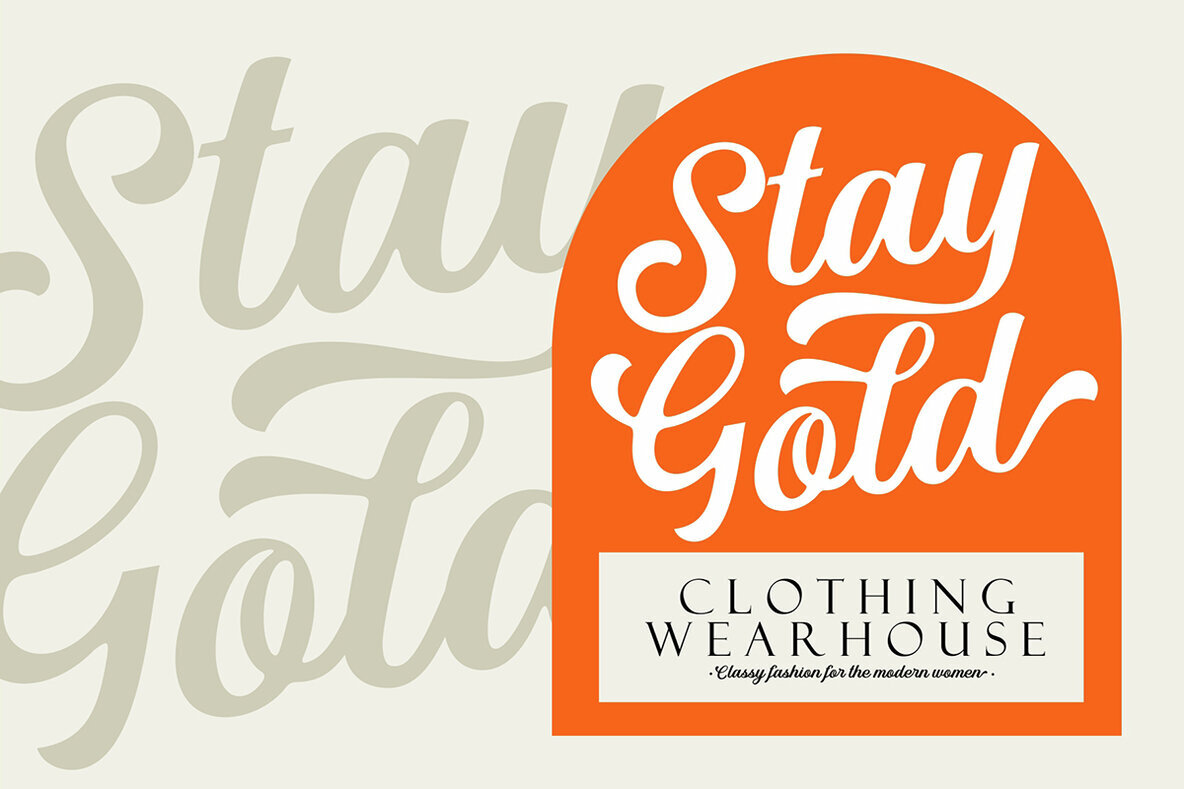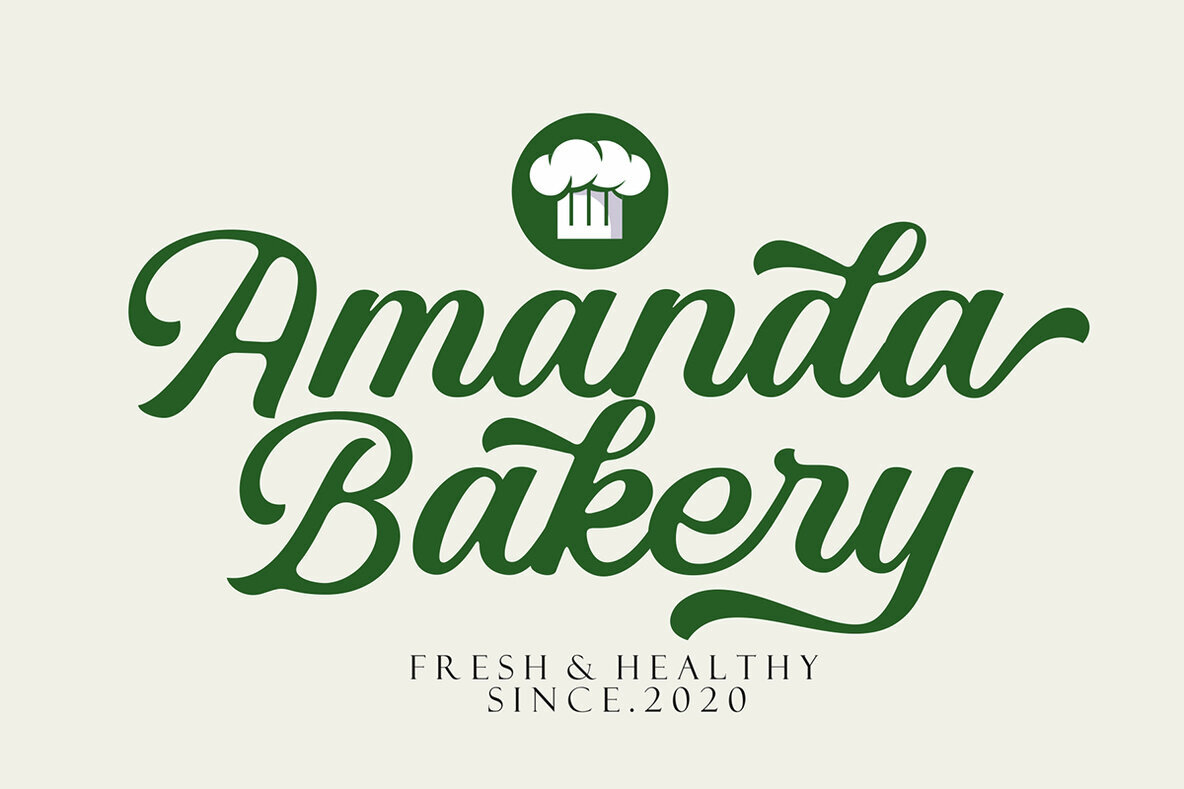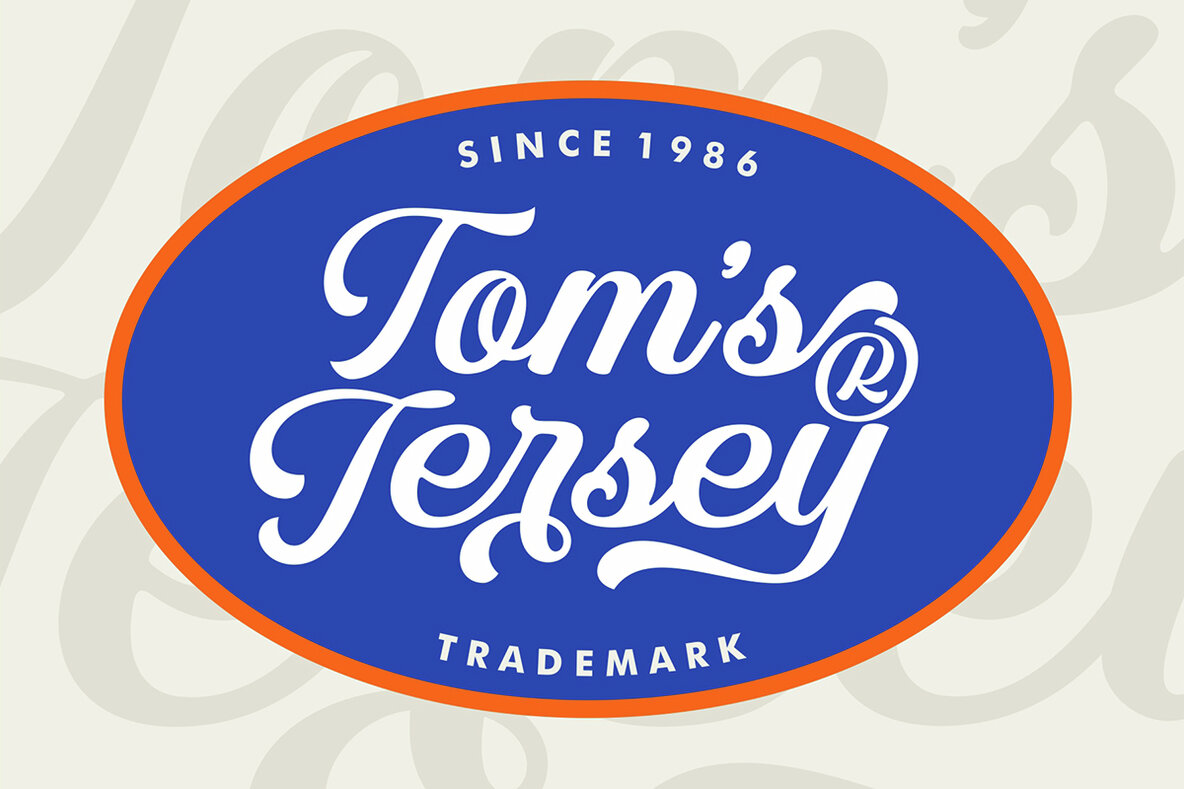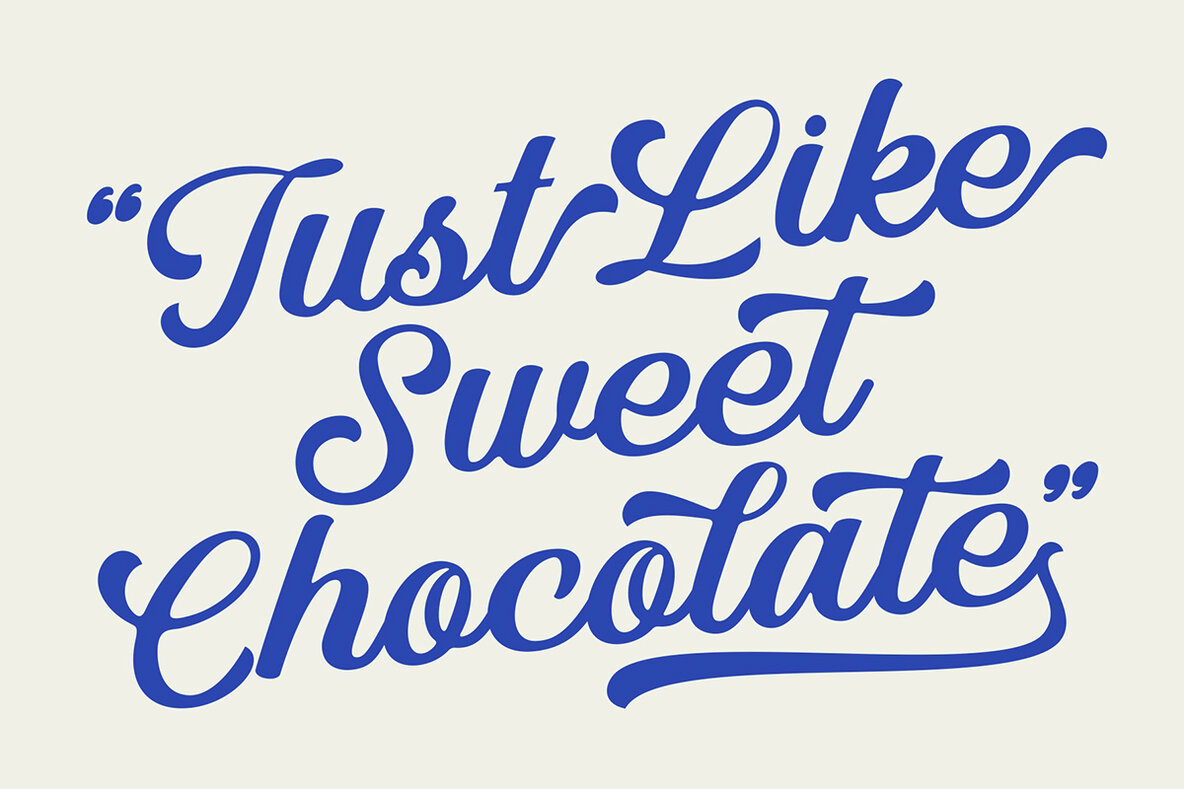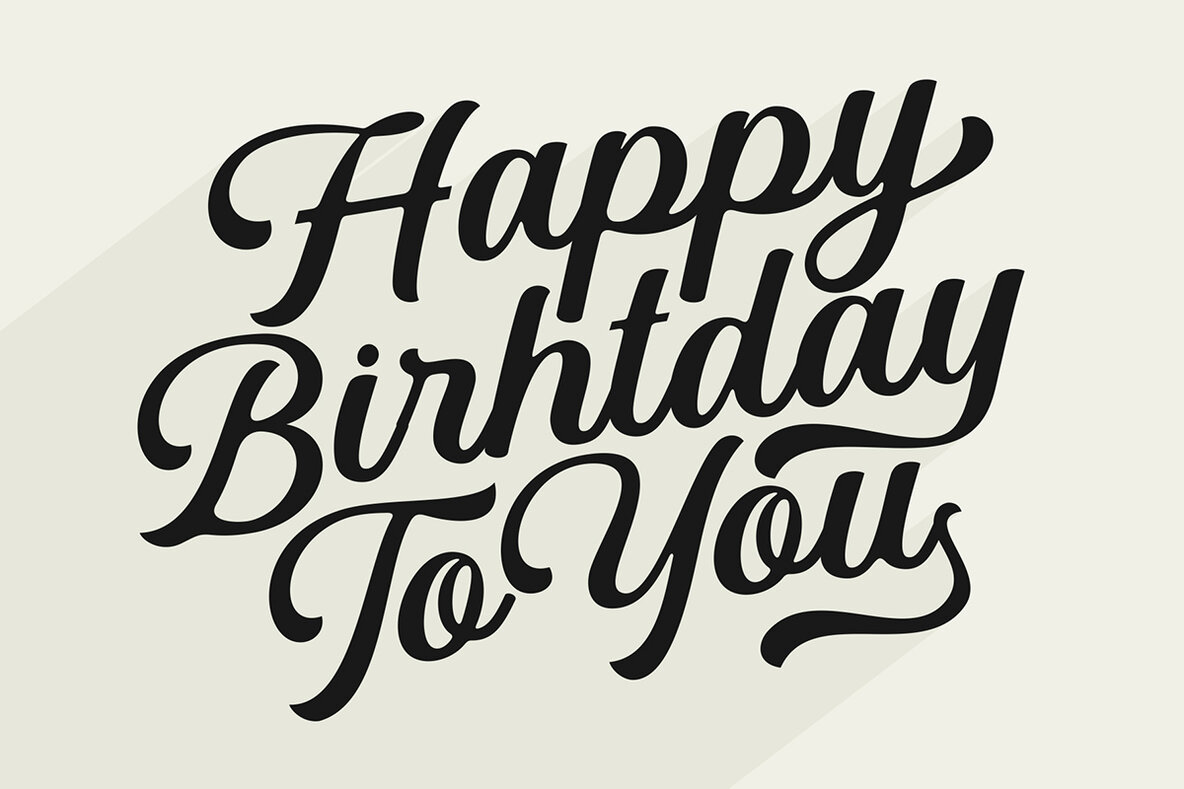
Artisan Script is a casual rounded script font, ideal for adding a friendly and elegant touch to your designs. Perfect for projects like branding, wedding invitations, neon signs, logos, greeting cards, and quotes, Artisan Script brings a versatile charm to various design needs.
This font includes a comprehensive feature set with uppercase, lowercase, numeric and multilingual support. Enjoy stylistic alternates, swashes, and ligatures, which offer diverse creative options. Additionally, the PUA encoding facilitates seamless use in software that lacks OpenType support, such as Silhouette and Inkscape.